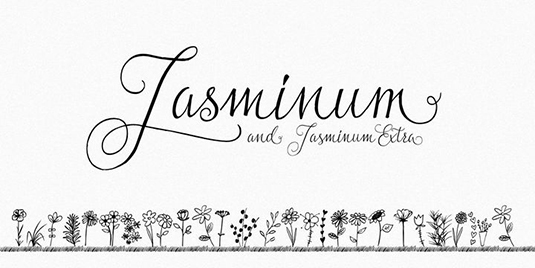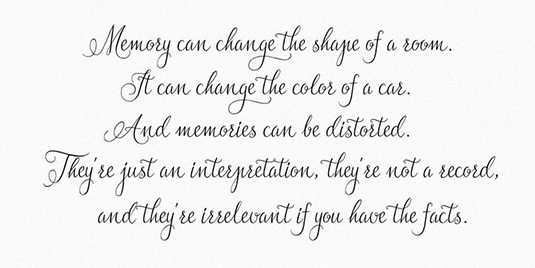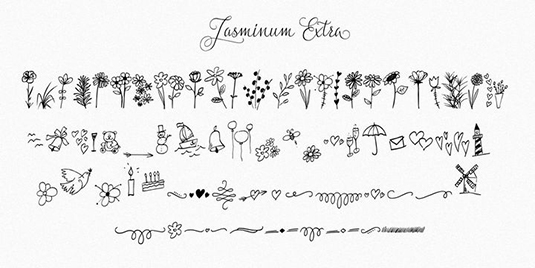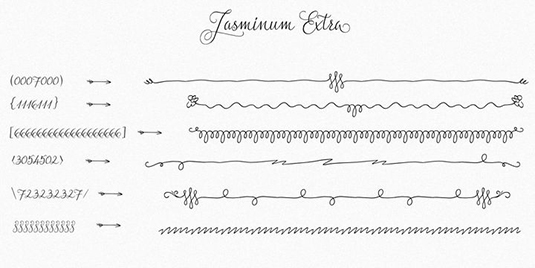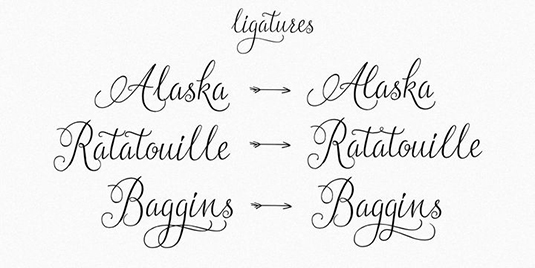
Font of the day: Jasminum
Every day of the week we showcase our favourite typefaces – today it's Jasminum by Bartek Nowak.
Jasminum by Bartek Nowak
Today's typeface of choice is Jasminum, created by Bartek Nowak of the Polish type collective GRIN3. An elegant, handwritten font, Jasminum is a fully connected script with ligatures to help with flow and readability. Each letter has three variations and its extrovert style makes it ideal for invitations, greeting cards, wedding stationery, books, and more.